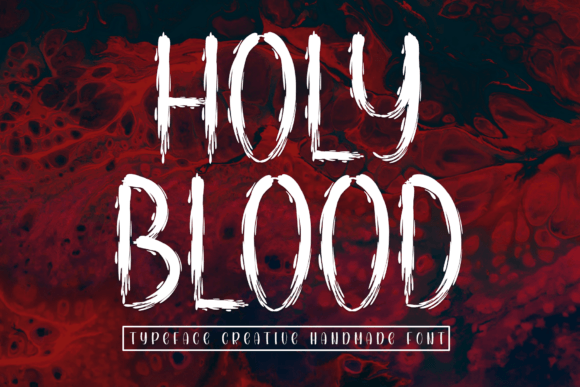
Prepare yourself for a typographic odyssey with Holy Blood Font, the display font that oozes character and drama. This modern and creative font is a visual feast, featuring a mesmerizing dropping effect that will add a touch of intrigue and dynamism to your designs.
Immerse yourself in the allure of Holy Blood Font, a font crafted with precision and passion. Each letterform is a work of art, meticulously designed to convey a sense of power and energy. From its sharp angles to its flowing curves, Holy Blood Font exudes a distinct personality that will make your designs stand out from the crowd.
Unleash your creativity with Holy Blood Font and explore a world of design possibilities. Whether you're creating t-shirt designs that demand attention, signs that command respect, frame art that captivates the senses, posters that ignite imaginations, or invitations that set the stage for unforgettable events, Holy Blood Font is your ultimate companion.
Step into the spotlight with Holy Blood Font and let your designs take center stage. Its bold presence and captivating style will leave a lasting impression on your audience, ensuring that your message resonates with power and impact.